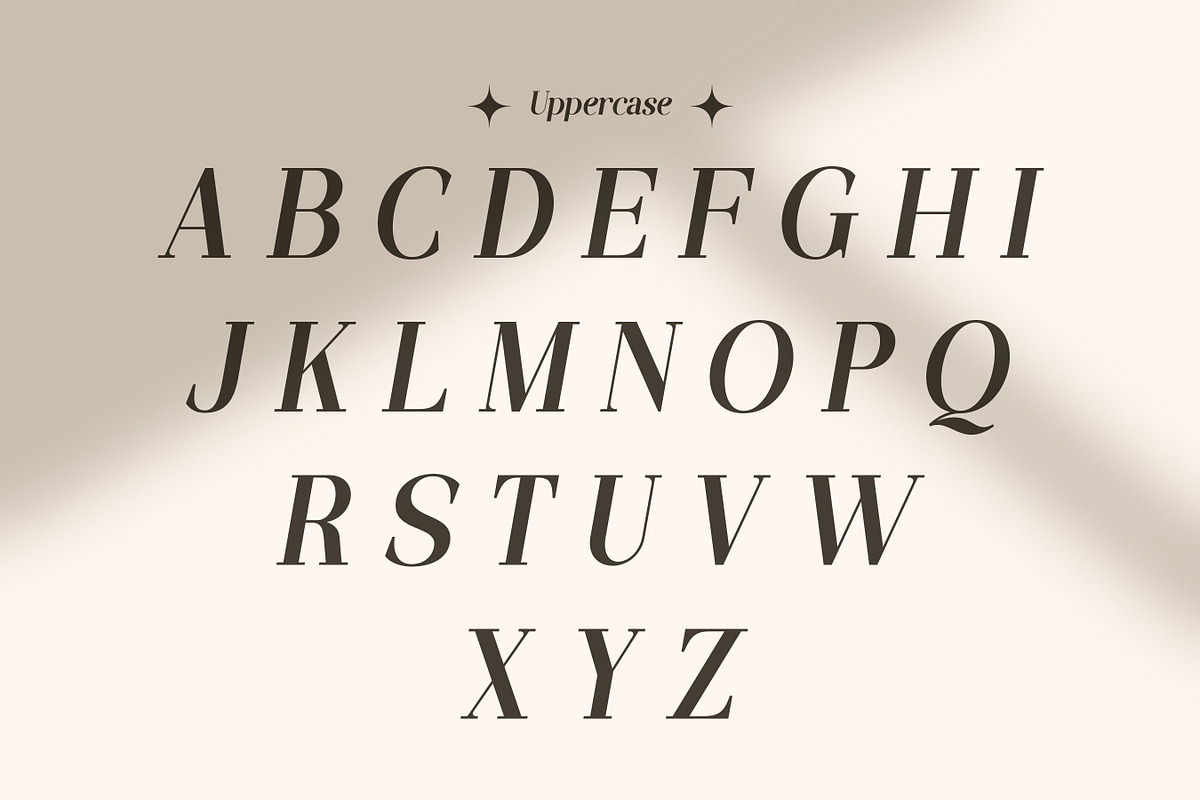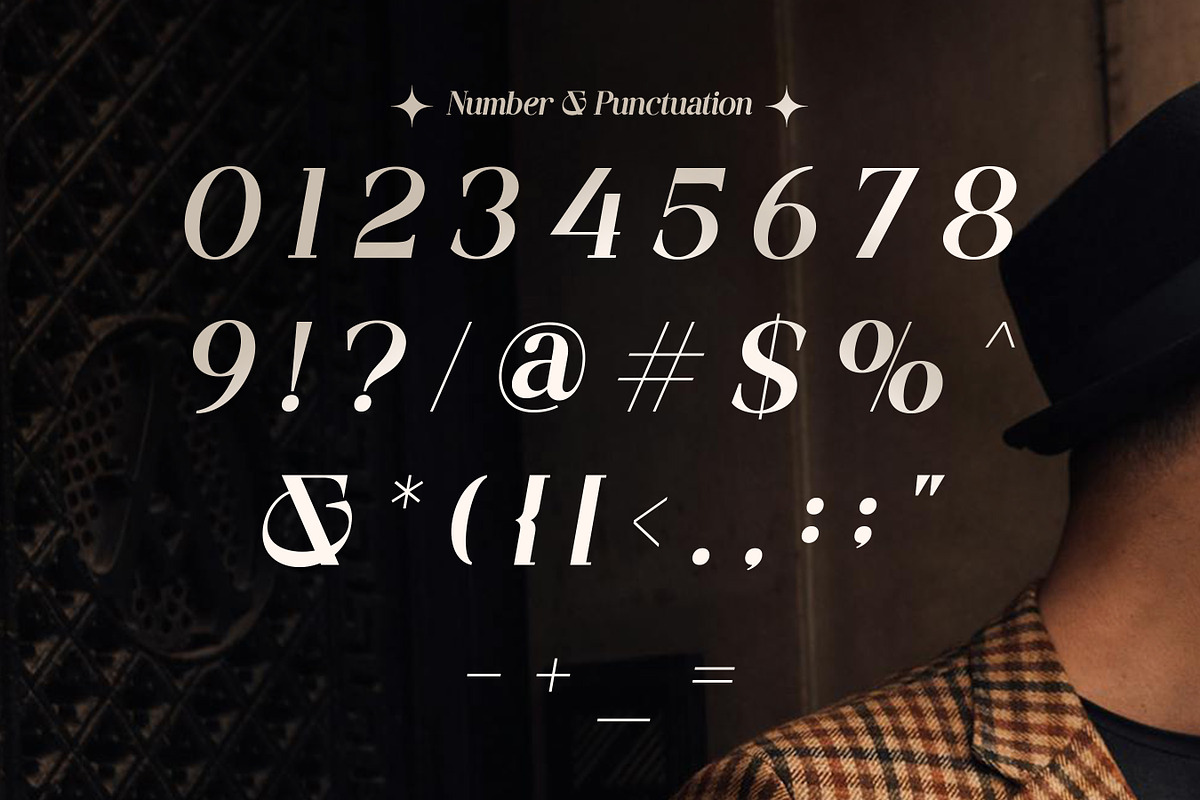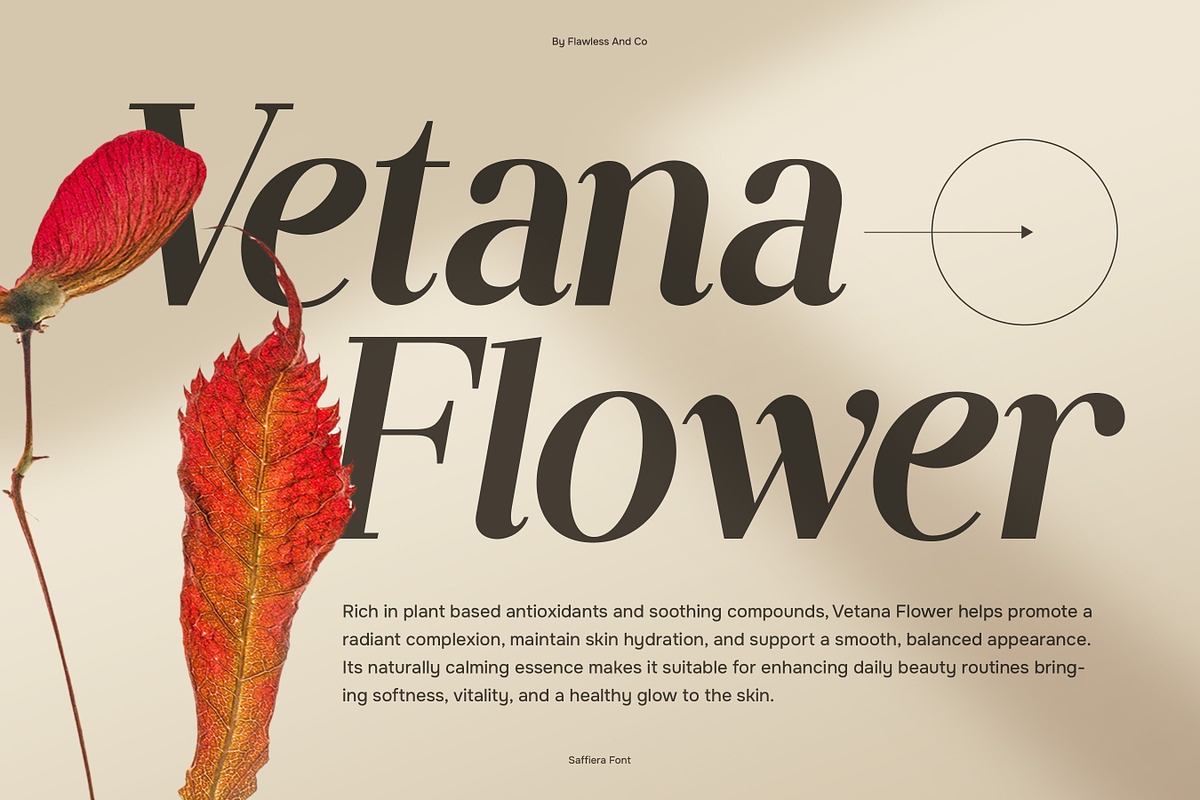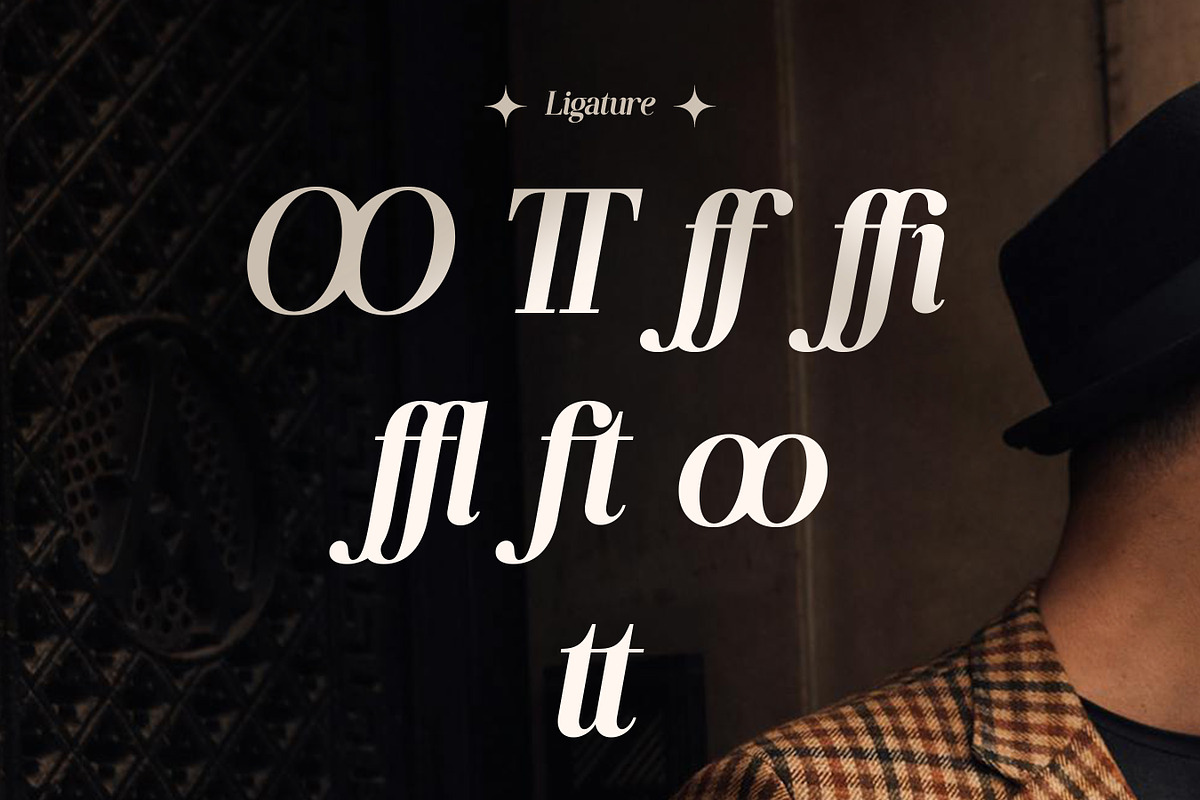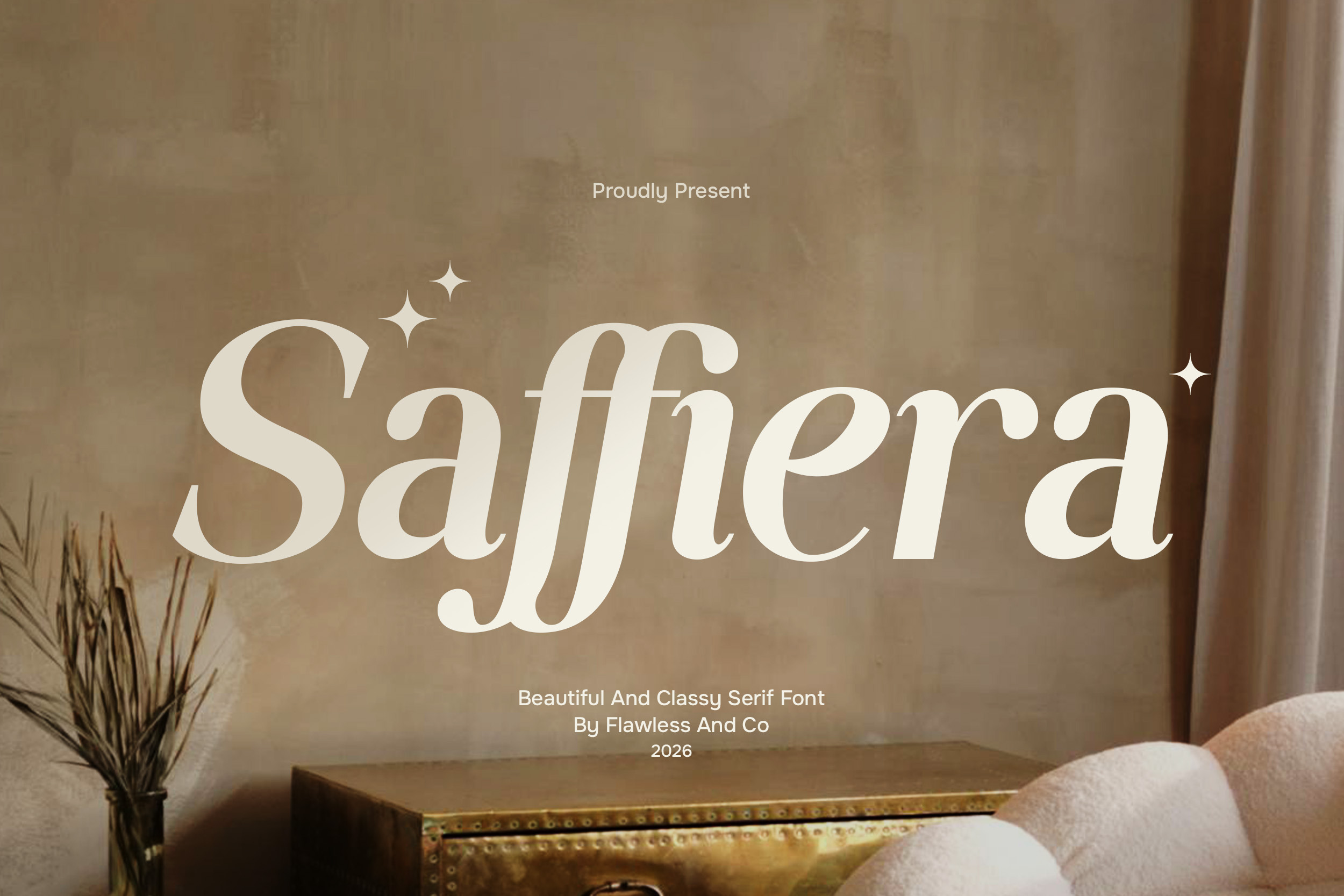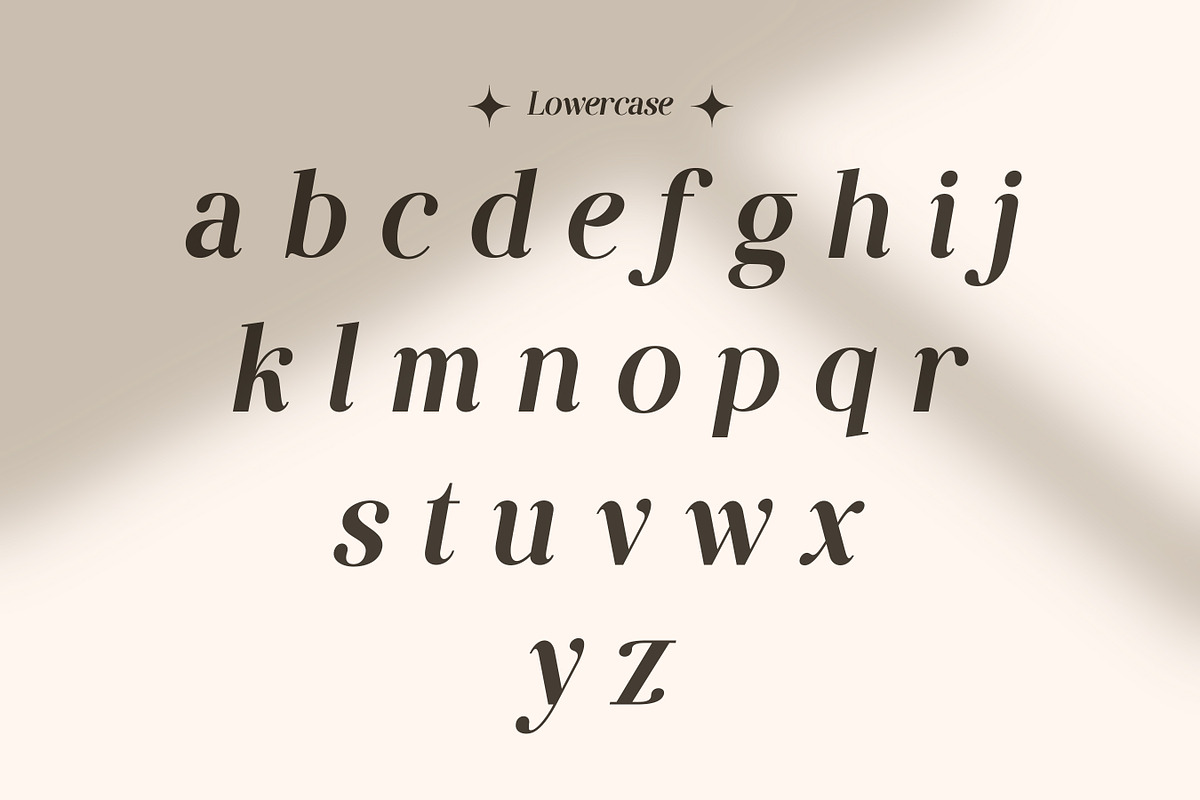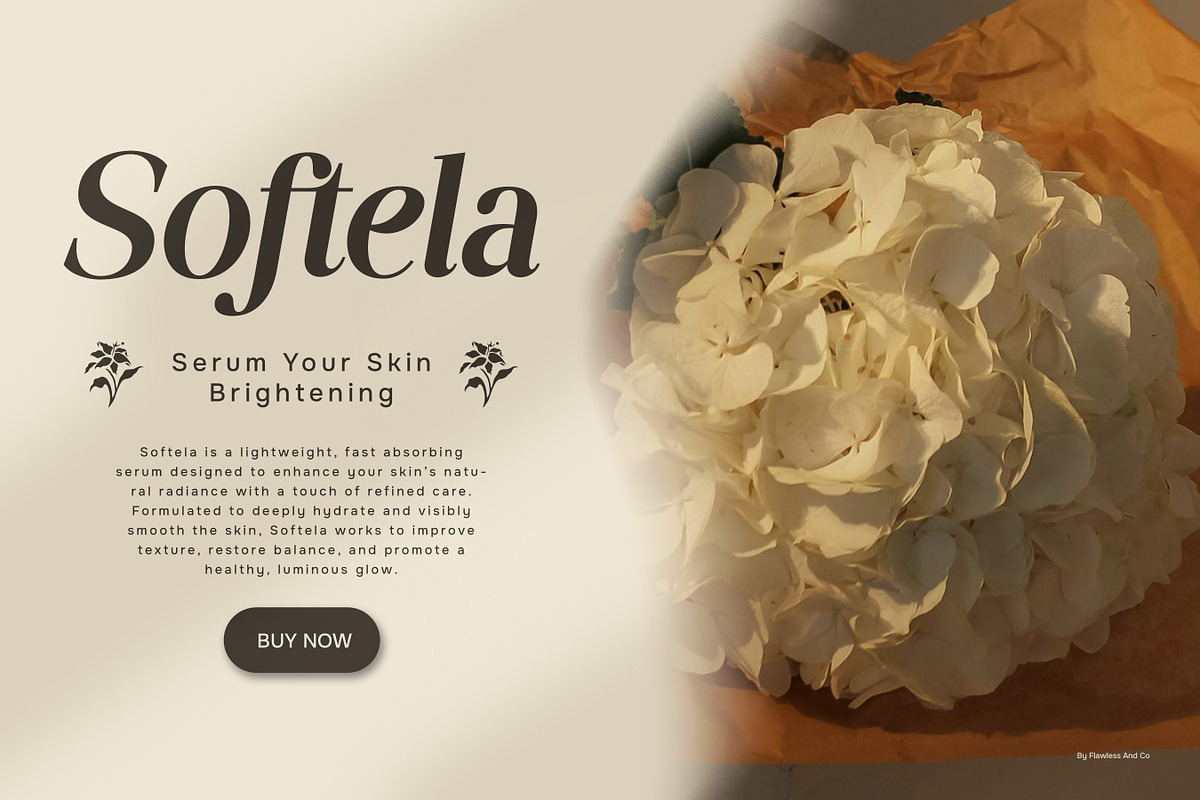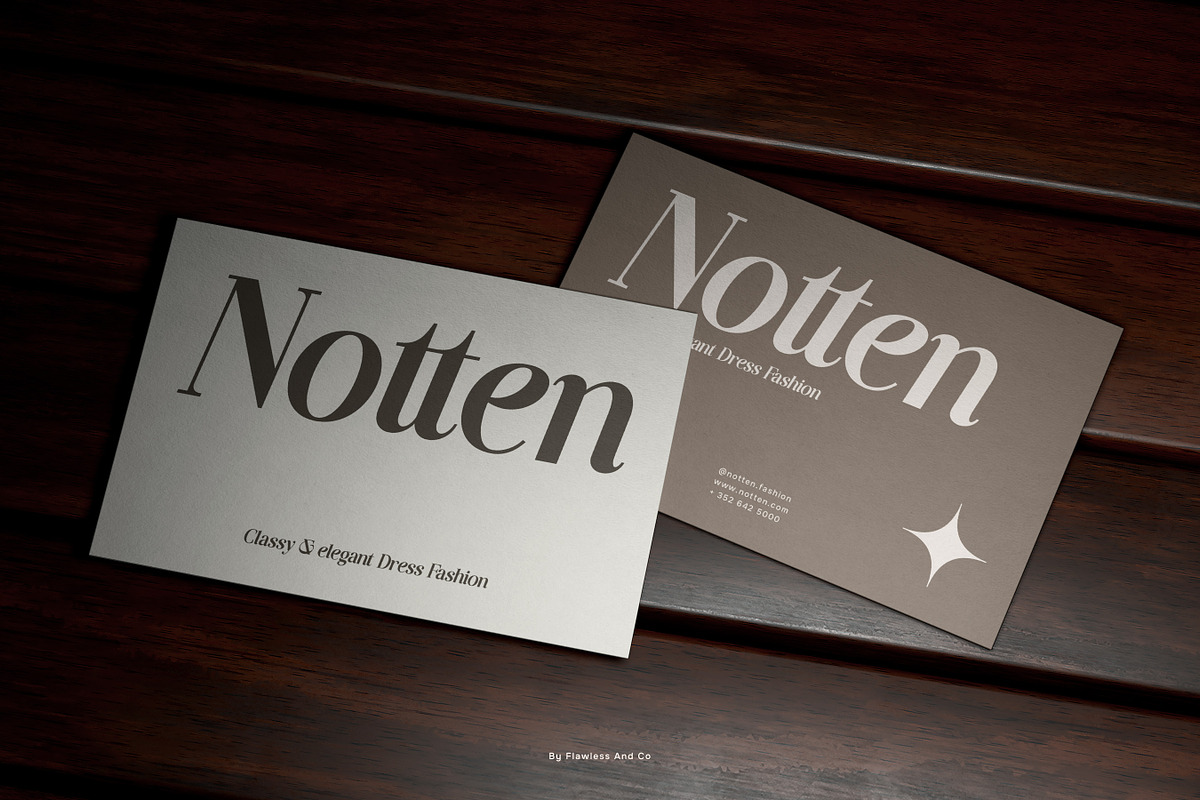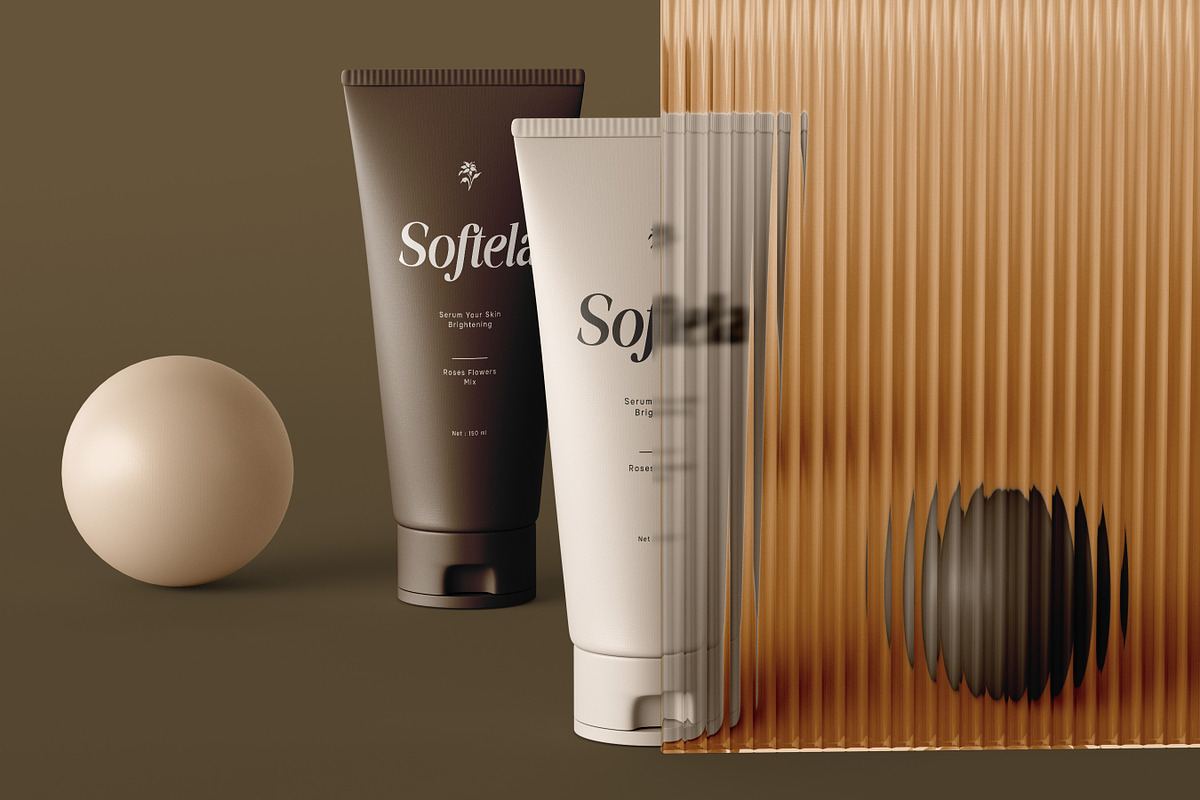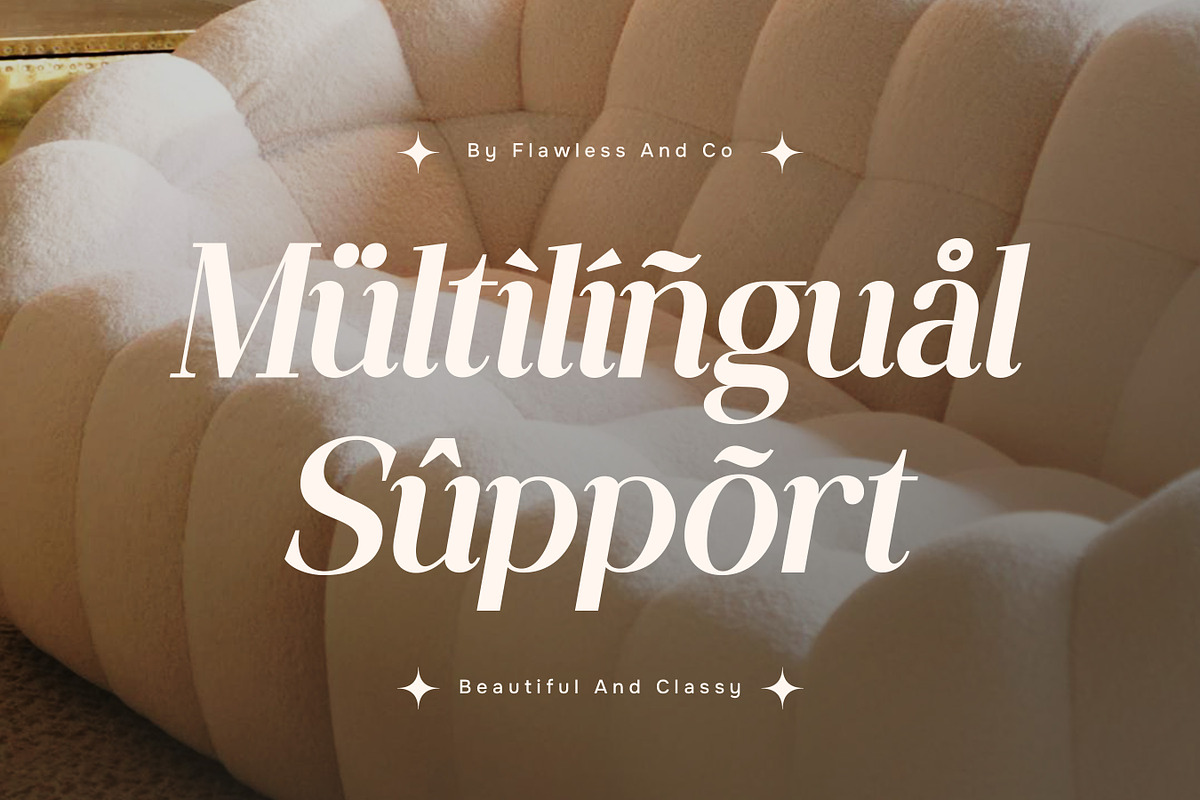
Saffiera - Classy Serif Font
Saffiera – Classy Beautiful Serif Font
Saffiera is a classy and graceful italic serif typeface designed to bring a sense of beauty, elegance, and sophistication to your work. With its smooth curves, delicate contrast, and stylish letterforms, Saffiera creates a luxurious visual presence that feels both modern and timeless. This font is carefully crafted to elevate your designs, making it perfect for projects that require a polished and high-end look. Its elegant structure ensures excellent readability while maintaining a strong aesthetic appeal, making it ideal for both display and editorial use. Whether you're designing for branding or creative content, Saffiera adds a touch of charm and professionalism to every composition.
Who Should Use Saffiera?
Saffiera is perfect for designers, creatives, and entrepreneurs who want to create visually stunning and elegant designs. It’s especially suited for those working in fashion, beauty, and luxury branding who need a typeface that communicates class and sophistication.
Suitable For:
- Luxury and high-end branding
- Fashion and beauty logos
- Wedding invitations and stationery
- Editorial layouts and magazines
- Product packaging and labels
- Social media content and promotions
- Elegant quotes and typography designs
- Boutique and lifestyle branding